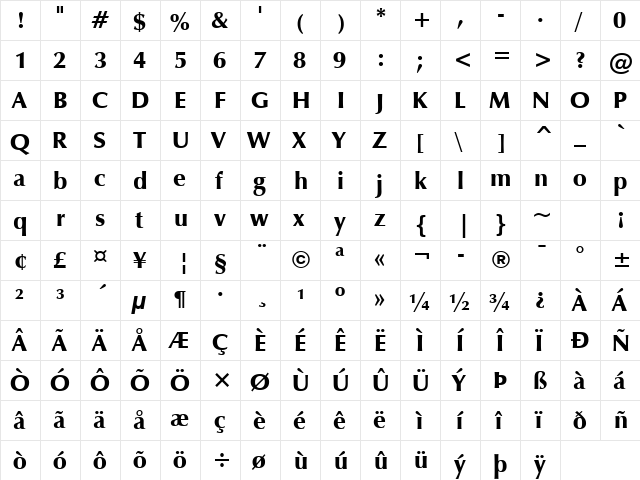
ZapfHumnst Ult BT Ultra Font Preview
ZapfHumnst Ult BT Ultra
Design Context for ZapfHumnst Ult BT Typeface
ZapfHumnst Ult BT takes a measured approach to typography — its balanced proportions and neutral character make it a reliable workhorse for both digital and print work.